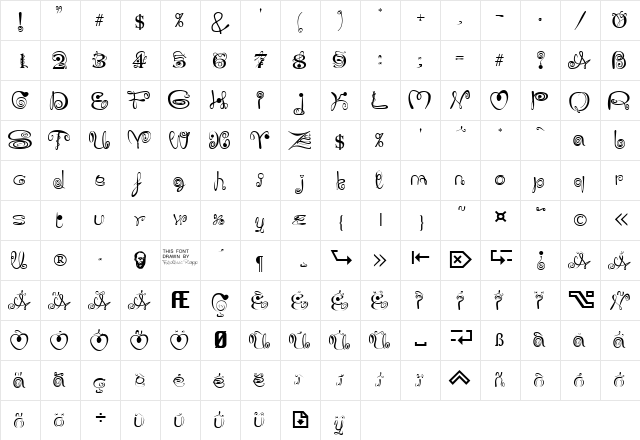
JoliScript Regular
Design Context for JoliScript Typeface
JoliScript brings a calligraphic fluidity to the page — its connecting strokes and expressive curves give it an unmistakably human quality.
Font Pairing: Combine JoliScript with a simple geometric sans for maximum contrast — the tension between flowing curves and clean structure is a classic typographic pairing.
Pro Tip: Pair JoliScript with a clean sans-serif for supporting text. The contrast between fluid script and geometric structure creates an elegant typographic hierarchy.